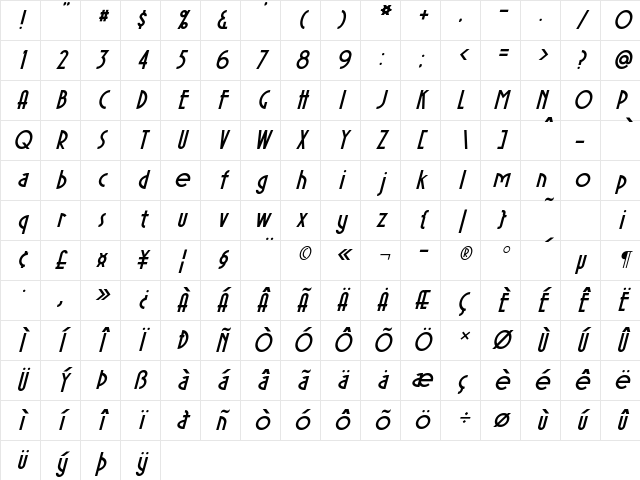
Sierra Madre is a composed and adaptable typeface that performs quietly and consistently across a wide range of design contexts. The slanted form adds forward momentum and visual energy.